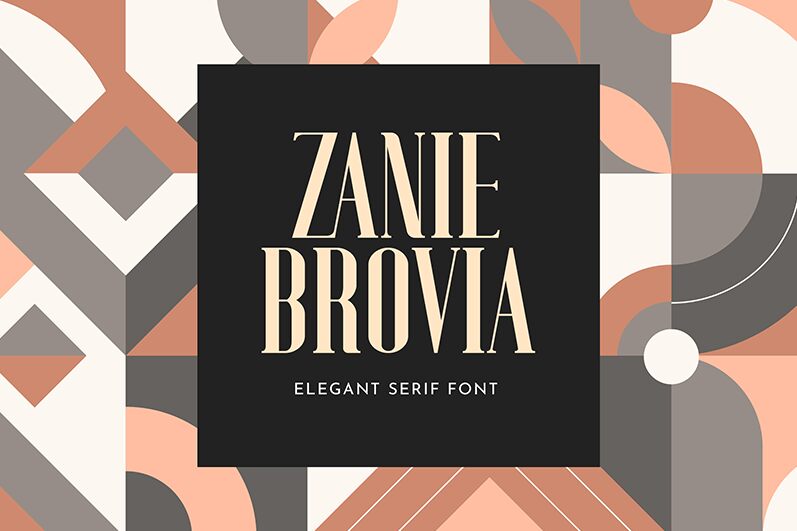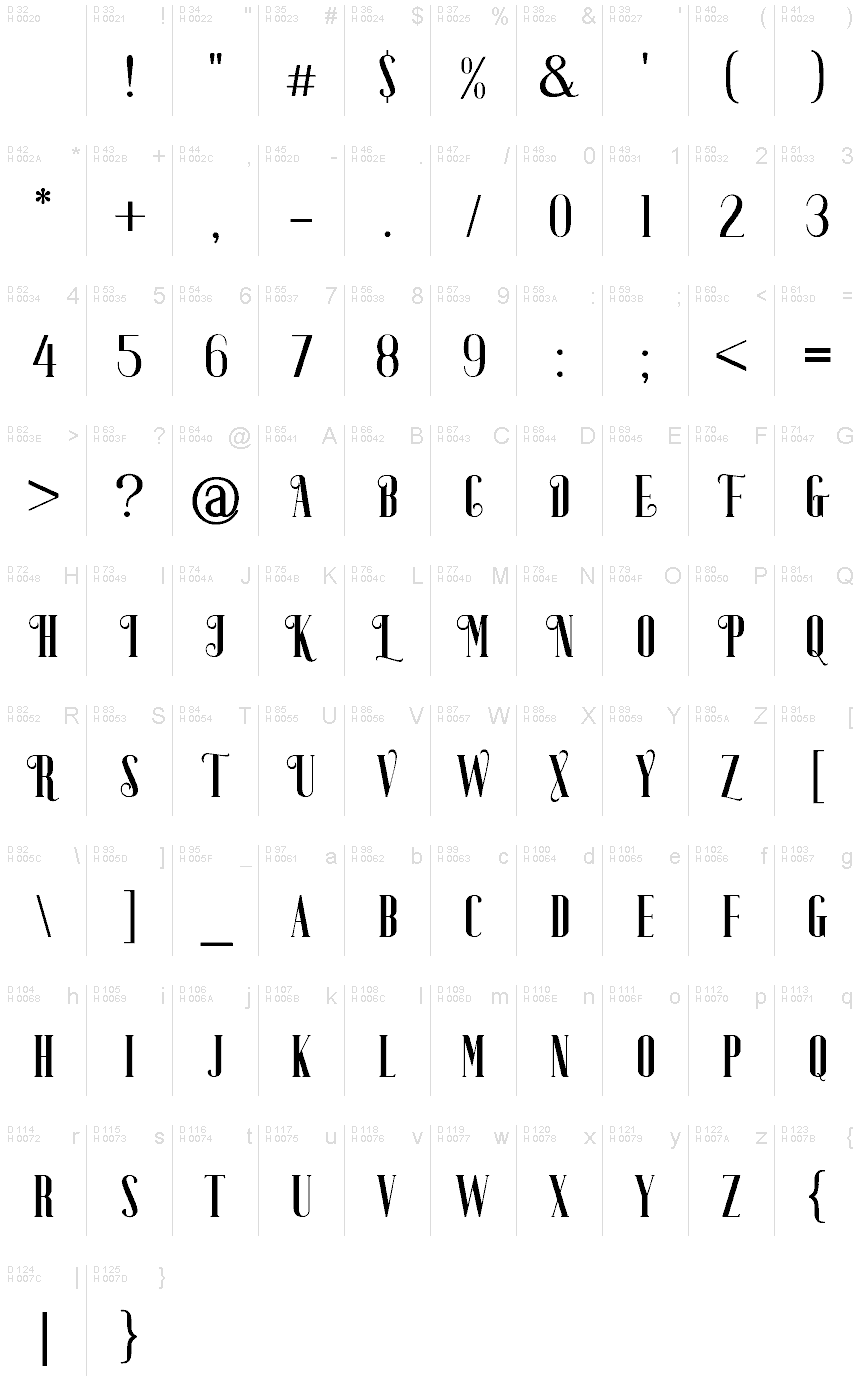
ZANIE BROVIA
Zanie Brovia font by UI Creative is a retro display font offering a classic and sophisticated typographic experience. Its condensed structure is elegant and ornate, giving it an overall decorative allure.
Decorative projects like poster design, home decor inspirations, billboards, signage in stores or galleries, product packaging of home items, magazines titles are all examples of where Zanie Brovia can be used.